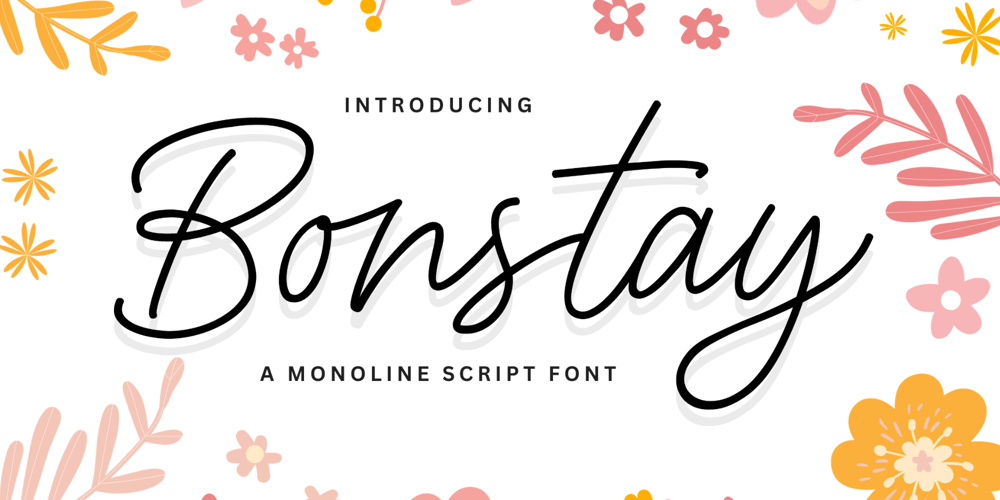
Bonstay Script
Bonstay Script font
Bonstay Script Font Family was designed by Ian Mikraz and published by IanMikraz Studio. Bonstay Script contains 1 styles and family package options. Bonstay is a sophisticated monoline script font that exudes an air of elegance and refinement. Its graceful letterforms and fluid strokes make it an ideal choice for projects that require a touch of timeless sophistication. Whether you’re working on wedding invitations, luxury branding, or high-end product packaging, Bonstay adds a touch of class and elegance that elevates your designs to new heights.With its versatile nature and exquisite details, Bonstay is the perfect companion for designers seeking to create refined and sophisticated visuals that leave a lasting impression of luxury and style.